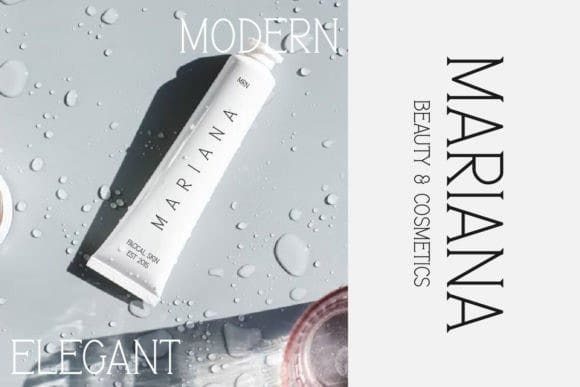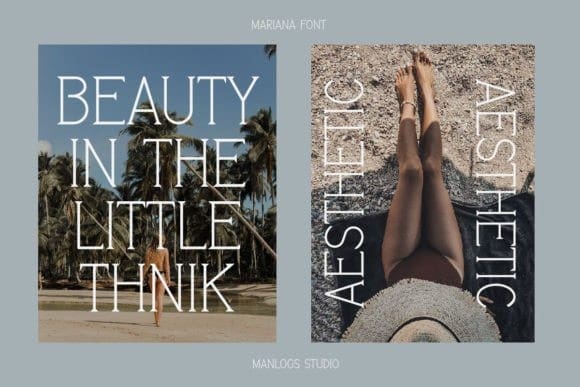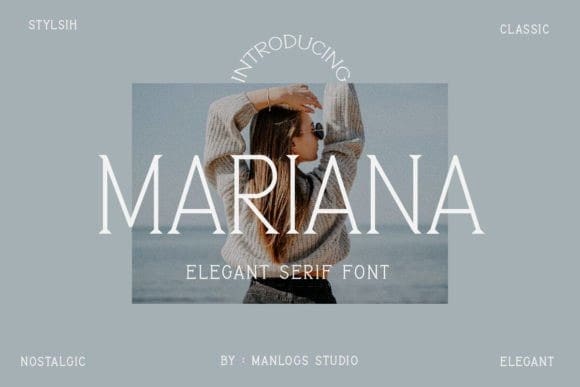
Mariana Font
Mariana Font is a minimalist and charming serif font with a modern touch. Specially designed for luxury, elegant and feminine projects, this font is perfect for creating modern and chic designs.